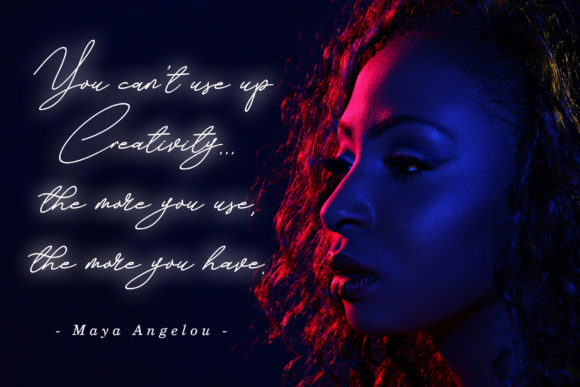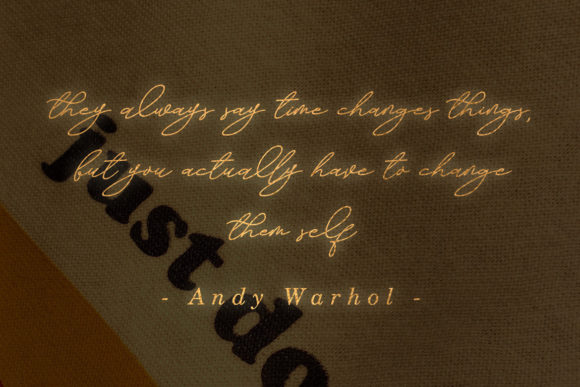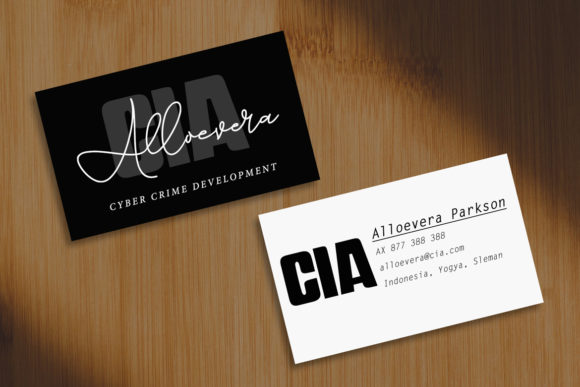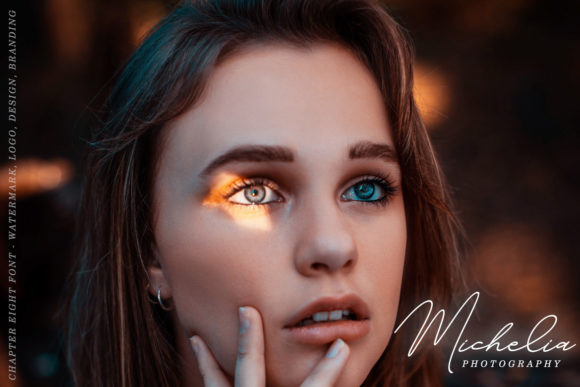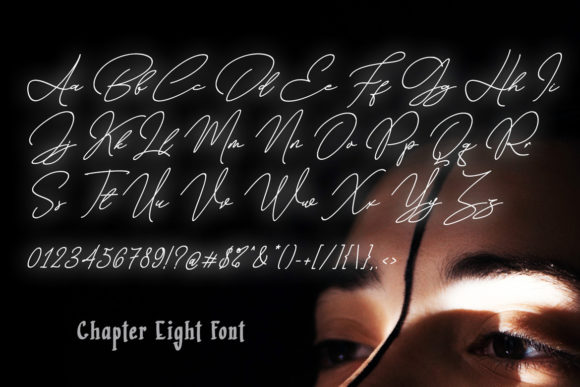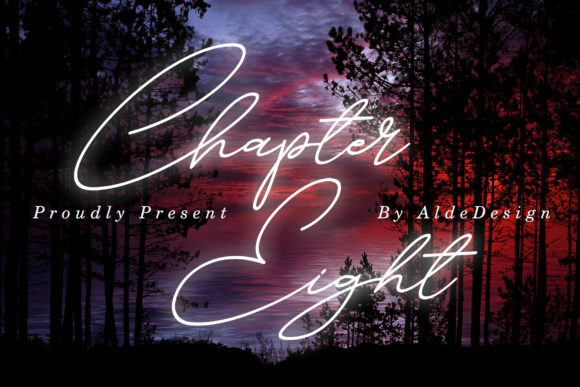
Introducing Chapter Eight Font: Elevate Your Designs with Elegance and Sophistication
In the world of typography, a well-crafted font can make all the difference in transforming a design from ordinary to extraordinary. For designers and crafters seeking to infuse their projects with a touch of elegance and sophistication, Chapter Eight Font is an exceptional choice. This simple yet classy signature typeface is designed to bring a level of refinement and poise to any design, making it perfect for those who appreciate the beauty of fine typography.
The Essence of Chapter Eight Font
Chapter Eight Font is characterized by its clean lines, graceful curves, and a sophisticated charm that is hard to resist. It is a signature typeface that exudes a sense of luxury and refinement, making it an ideal choice for designers who want to create stunning visual content. Whether you’re working on a branding project, a wedding invitation, or a packaging design, Chapter Eight Font is sure to leave a lasting impression.
Beautiful Swashes for Added Flair
One of the standout features of Chapter Eight Font is its beautiful swashes. These elegant flourishes add an organic feel to any design project, allowing designers to create unique and eye-catching visuals. The swashes can be used to add a touch of personality to a design, making it more engaging and memorable. With Chapter Eight Font, designers have the flexibility to experiment with different swash combinations, creating one-of-a-kind designs that showcase their creativity.
Chapter Eight Font is a versatile typeface that caters to the needs of both designers and crafters. Its simplicity and elegance make it an excellent choice for a wide range of design projects, from digital graphics to print materials. Crafters who enjoy working with lettering and calligraphy will also appreciate the font’s classic charm and beauty. Whether you’re a professional designer or a hobbyist crafter, Chapter Eight Font is sure to become a valuable addition to your typography collection.
Why Choose Chapter Eight Font?
So, what sets Chapter Eight Font apart from other typefaces? Here are a few compelling reasons to choose this exceptional font:
- Elegance and sophistication: Chapter Eight Font boasts a refined and classy appearance that is sure to elevate your designs.
- Beautiful swashes: The font’s stunning swashes add an organic feel to any design, making it more visually appealing.
- Versatility: Chapter Eight Font is suitable for a wide range of design projects, from digital graphics to print materials.
Tips for Using Chapter Eight Font
To get the most out of Chapter Eight Font, here are a few tips to keep in mind:
- Experiment with swashes: Try out different swash combinations to add a unique touch to your designs.
- Pair with complementary fonts: Combine Chapter Eight Font with other fonts to create visually appealing contrast.
- Use for headlines and titles: The font’s elegance and sophistication make it perfect for headlines and titles.
Chapter Eight Font is a stunning signature typeface that is sure to elevate your designs with its elegance and sophistication. With its beautiful swashes and versatile design, this font is perfect for designers and crafters seeking to create visually appealing and memorable content. Whether you’re working on a branding project, a wedding invitation, or a packaging design, Chapter Eight Font is an excellent choice. So why wait? Discover the beauty of Chapter Eight Font and take your designs to the next level!